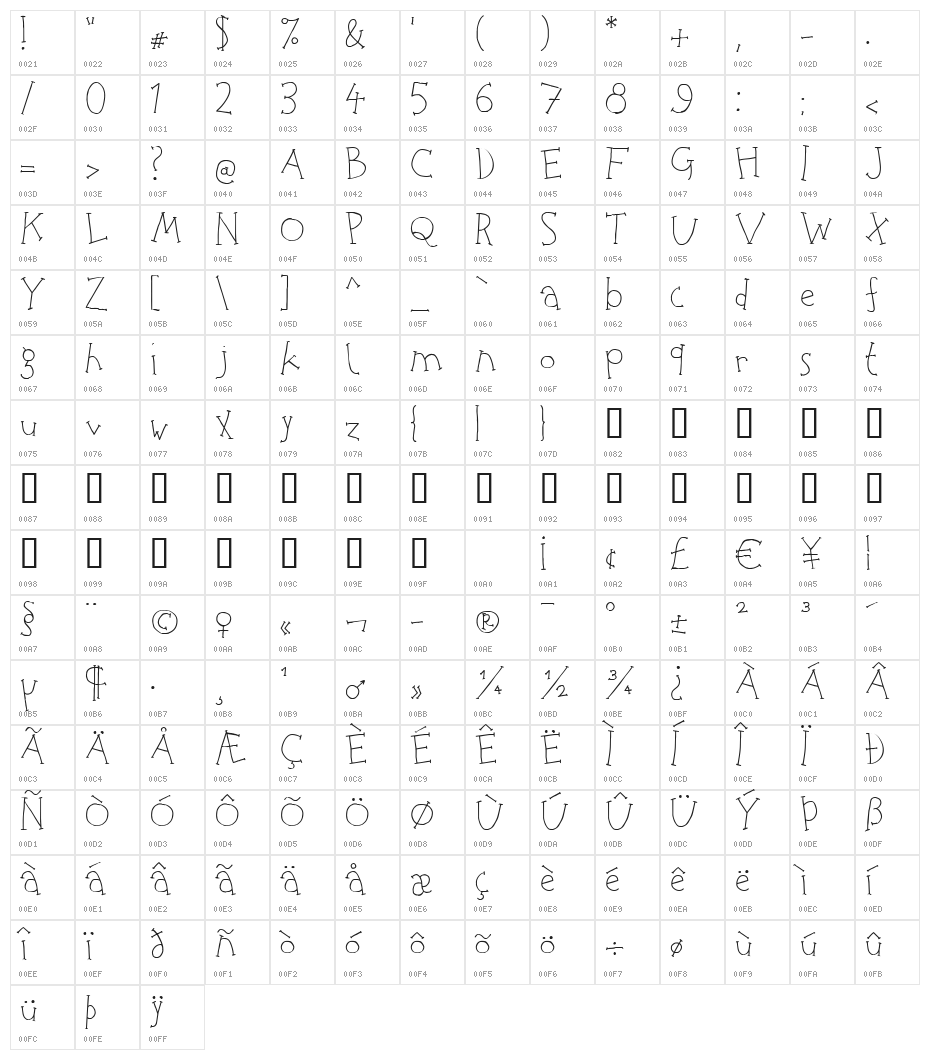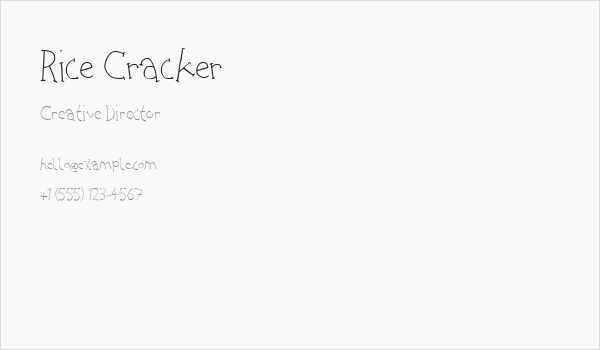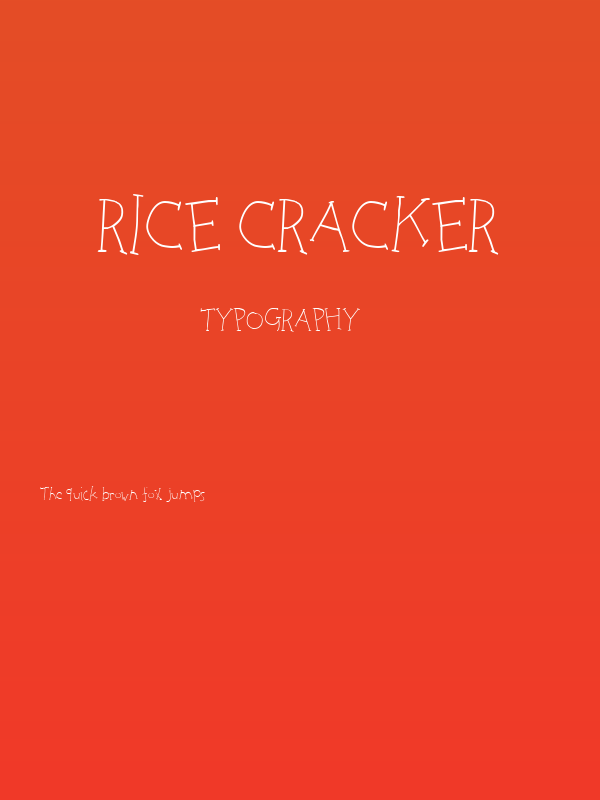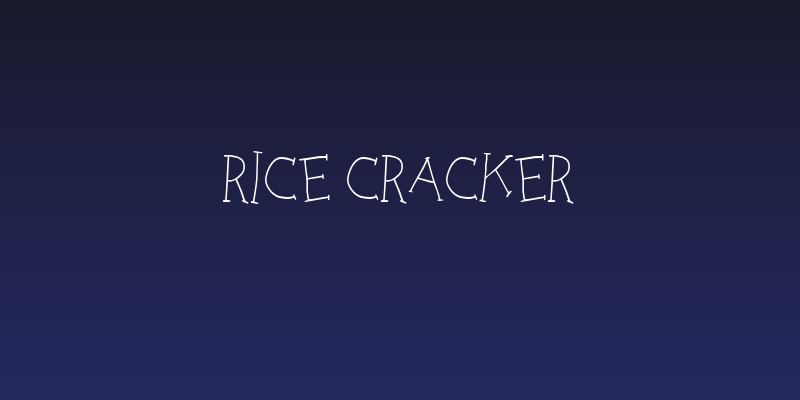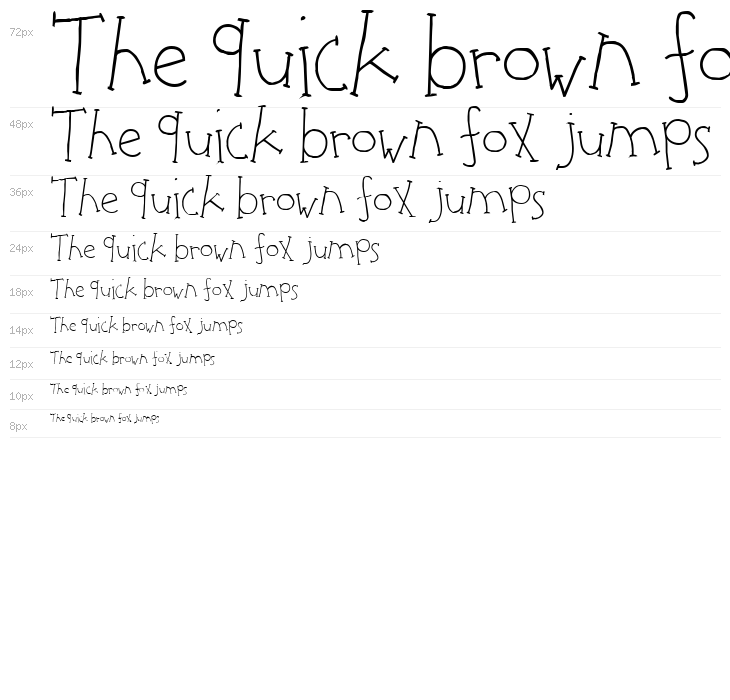
Rice Cracker Font
Rice Cracker Description
This font features a playful and whimsical design, characterized by its irregular, hand-drawn appearance. The letters have a casual, informal style with uneven lines and varying stroke widths, giving it a unique, artistic flair. The uppercase and lowercase letters maintain a consistent style, with quirky, slightly exaggerated serifs and curves. The numerals and special characters follow the same playful theme, making the font suitable for creative and fun projects. Its distinctive look is perfect for adding a touch of personality and charm to any design.
| Proposed Projects | Ideal for children's books, greeting cards, playful branding, and creative posters. |